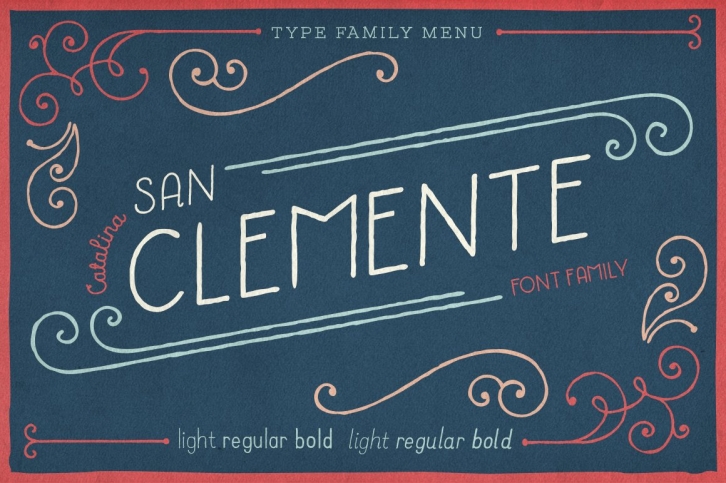
Earlier this year I visited a bakery in Newport Beach, CA and fell in love with the organic design and typography of the place. Hand-drawn menus, table cards, chalkboards, and wall quotes surrounded the charming spot. It inspired me to create a new font family based on the combination of hand drawn fonts.
Catalina Clemente has a standard width and can be used for paragraph text as well as headlines. It's organically geometric in style and comes in ALL CAPS and lowercase, includes upright and custom italics, and has the opentype feature giving 3 versions of each letter.